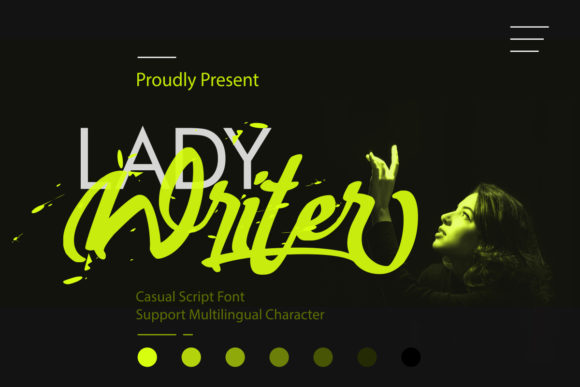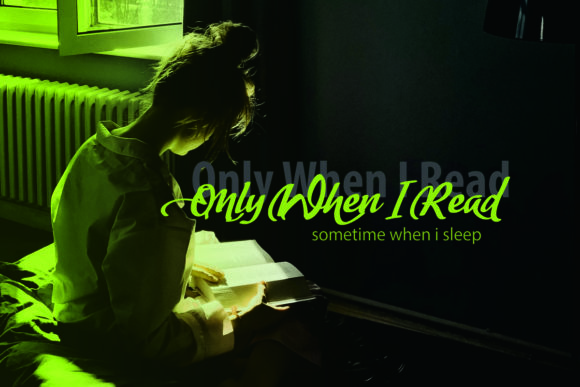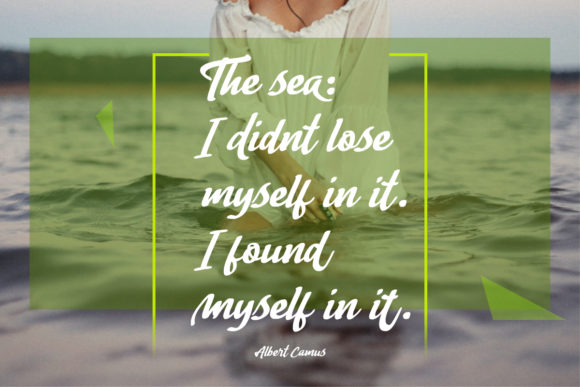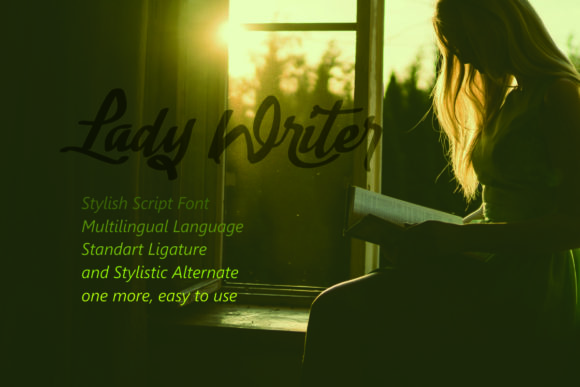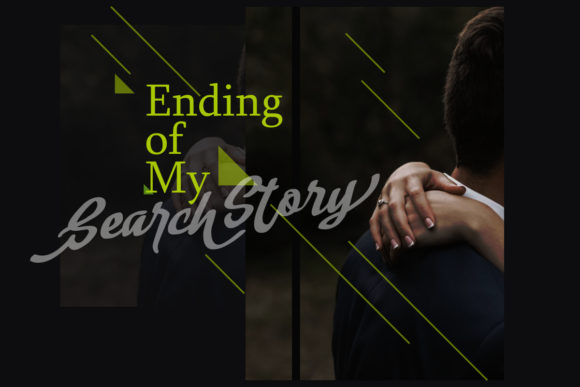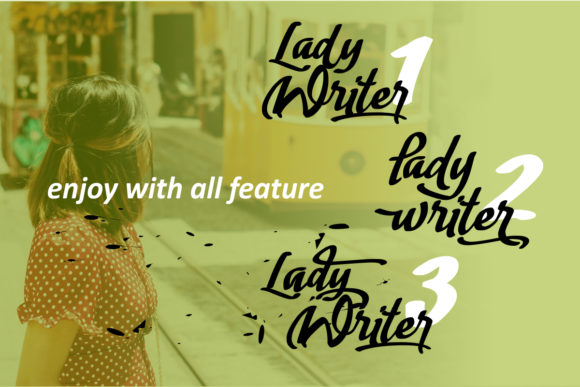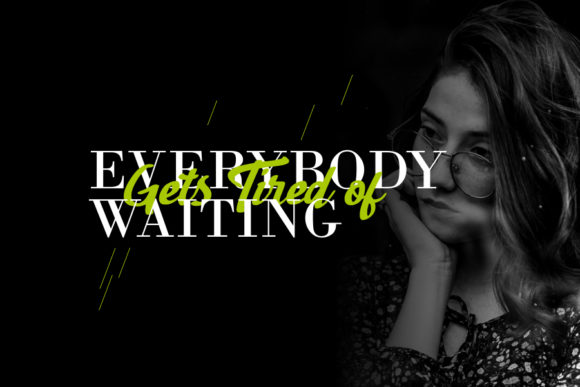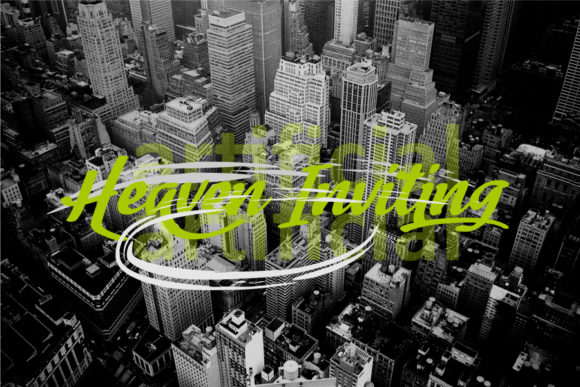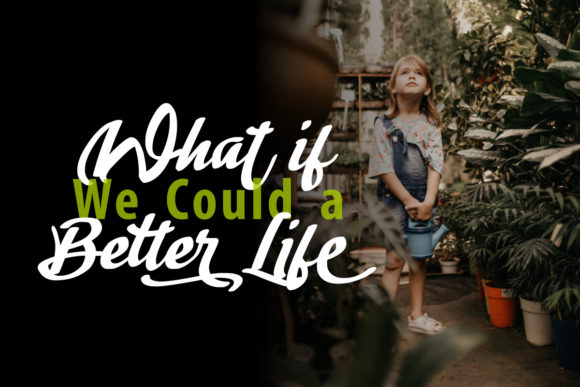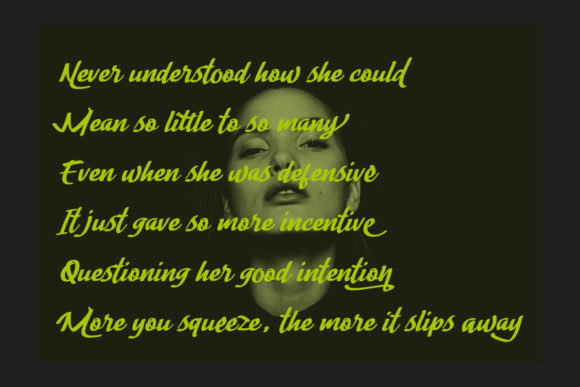
HomeScript FontsLady Writer Font Script Fonts Lady Writer Font FacebookXPinterestWhatsApp Lady Writer Font Poster 2 Lady Writer Font Poster 3 Lady Writer Font Poster 4 Lady Writer Font Poster 5 Lady Writer Font Poster 6 Lady Writer Font Poster 7 Lady Writer Font Poster 8 Lady Writer Font Poster 9 Lady Writer Font Poster 10 Lady Writer Font Poster 11 Lady Writer Font Poster 12 Lady Writer Font Poster 13 About Lady Writer Font Lady Writer is a strong and cool script font with a modern vibe. Get inspired by its unique style! DOWNLOAD ON CREATIVE FABRICAThis font is sold and delivered by Creative Fabrica. Font Canyon may earn a commission if you buy through this link. People also explored Oplexys Font Crafty Script Humble Jumble Font Oleandro Modern Calligraphy Font Happyday Font New Molly Font Mango Smoothie Hoogy Font Duralit Font 396 0 TagsLady Writer Font Previous articleGeovanice FontNext articleEverything Rises Font LEAVE A REPLY Cancel reply Comment: Please enter your comment! Name:* Please enter your name here Email:* You have entered an incorrect email address! Please enter your email address here Website: Save my name, email, and website in this browser for the next time I comment. Personal Use Free Cokobi Personal Use Free Read more about this font Good Timing – Bold Personal Use Free Read more about this font Fake Receipt Personal Use Free Read more about this font Hollster Personal Use Free Read more about this font BLOG Top 7 Google Fonts Alternatives for Faster and Privacy-Friendly Web Design (2025) Top 7 Google Fonts Alternatives for Faster and Privacy-Friendly Web Design (2025) When it comes to web typography, Google Fonts has long been the go-to... Modern Sans-Serif Fonts That Brands Love in 2025 Free vs Paid Fonts: Why Investing in Premium Fonts Is Worth It Using Fonts in Digital Marketing: Tips to Strengthen Your Brand Identity